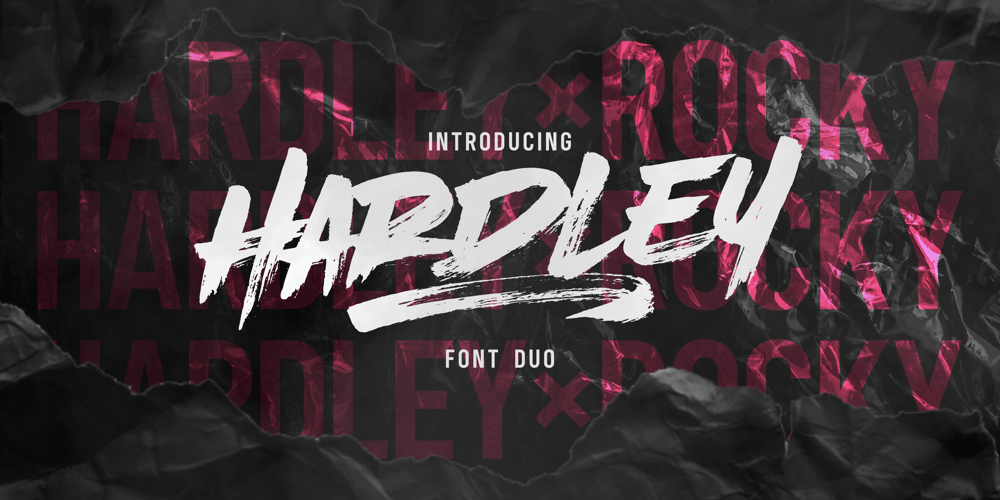
Hardley Brush Font Family was designed by Anugerah Negara and published by Negara Studio. Hardley Brush contains 3 styles and family package options. Hardley x Rocky Sanz is Font Duo, modern brush style and modern sans. The best for labels, poster, project designs look modern, authentic and cool . It’s perfect for labels, quotes, posters, DIY projects, branding, packaging, greeting cards, websites, photography overlays, signs, scrapbooking, tags and so much more! That is why Hardley has a textured, and authentic characteristic more natural look. You can activate Alternates glyphs OpenType panel.What’s Included : Standard glyphs Alternates glyphs Bonus extra font (52 swashes) Web Font Works on PC & Mac Simple installations Accessible in Adobe Illustrator, Adobe Photoshop, Adobe InDesign, even work on Microsoft Word.Image used: All photographs/pictures/vectors used in the preview are not included, they are intended for illustration purposes only.Hardley x Rocky Sanz supports the following languages; English, French, Italian, Spanish, Portuguese, German, Swedish, Norwegian, Danish, Dutch, Finnish, Indonesian, Malay, Hungarian, Polish, Croatian, Turkish, Romanian, Czech, Latvian, Lithuanian, Slovak, Slovenian~Anugerah